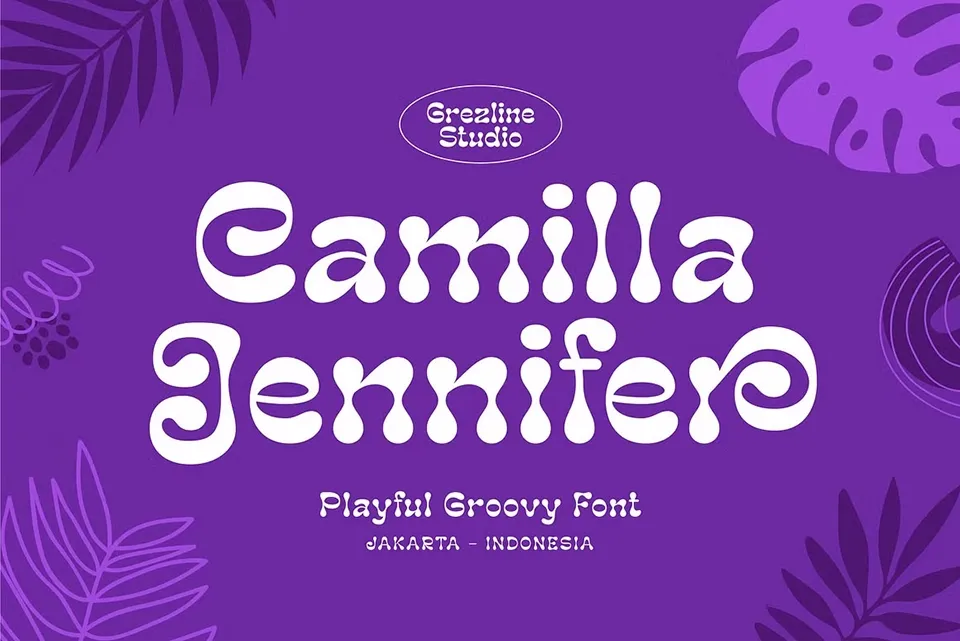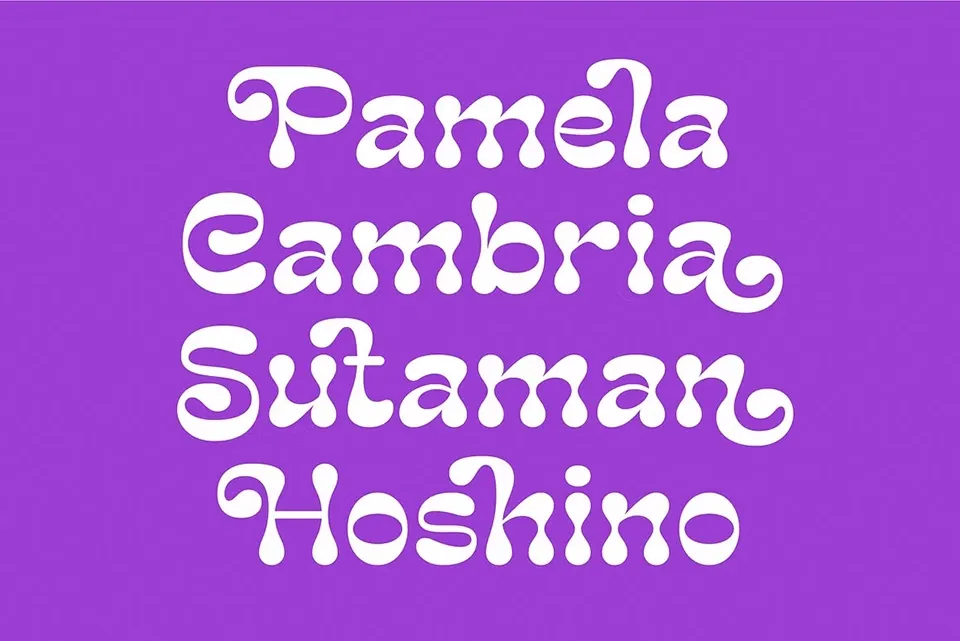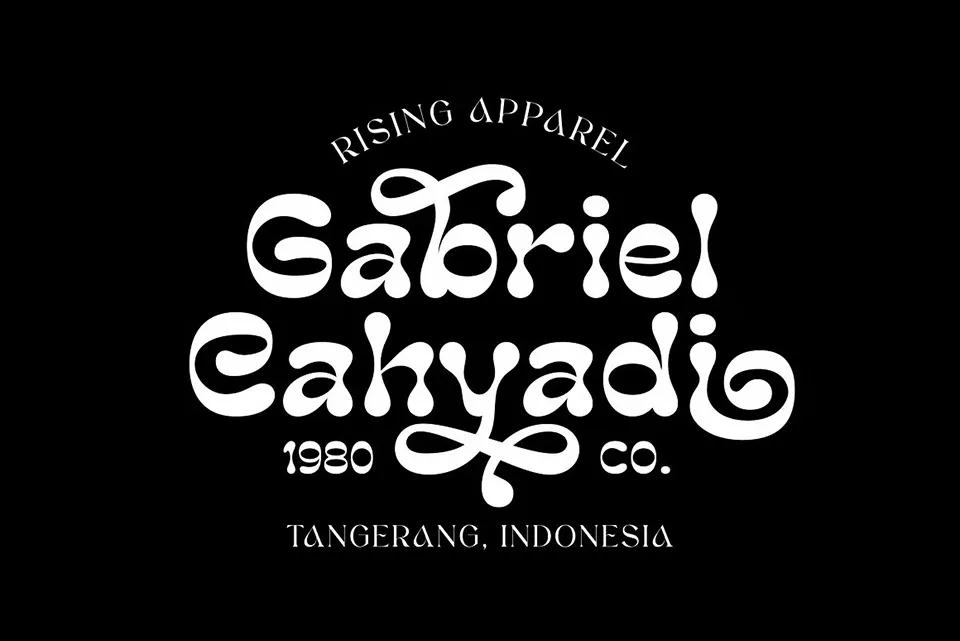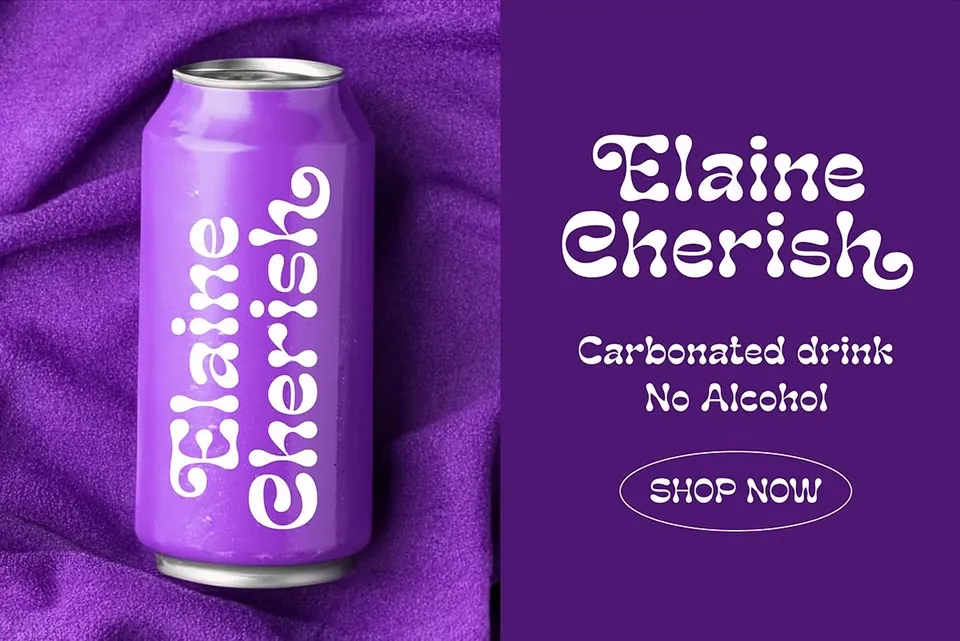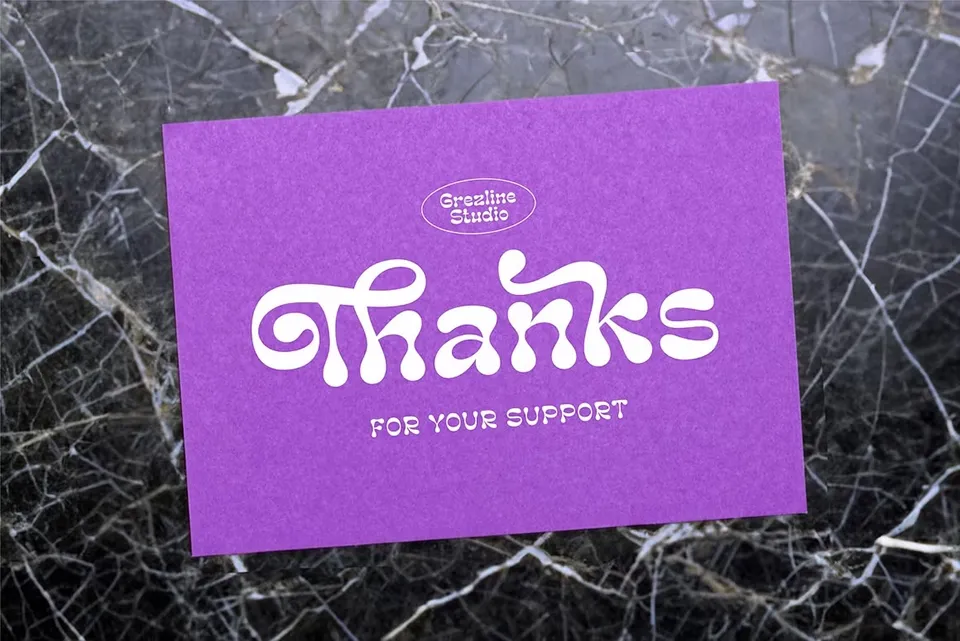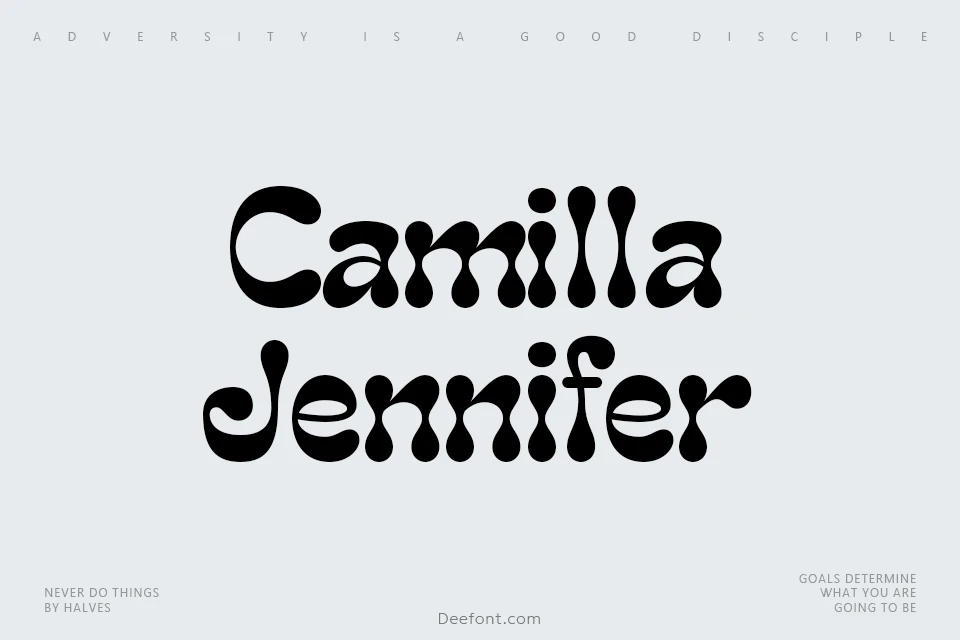
Camilla Jennifer Font
Camilla Jennifer Font is a playful, groovy font inspired by the bubbly, psychedelic styles of the 1970s. Packed with alternate glyphs and ligatures, it’s designed to captivate attention and add a funky, retro vibe to your work. This font is ideal for logos, covers, posters, quotes, product packaging, merchandise, and social media-perfect for anyone looking to infuse their designs with a touch of vintage charm and creativity.